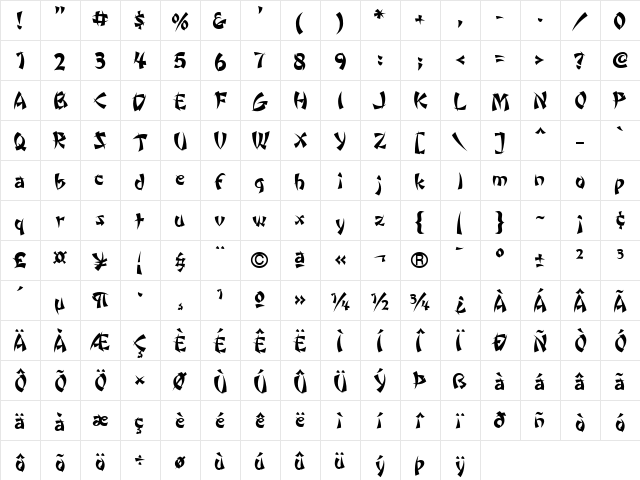
WontonICG Medium Font Preview
WontonICG Medium
WontonICG Medium Font Details
Design Context for WontonICG Typeface
WontonICG is a composed and adaptable typeface that performs quietly and consistently across a wide range of design contexts.